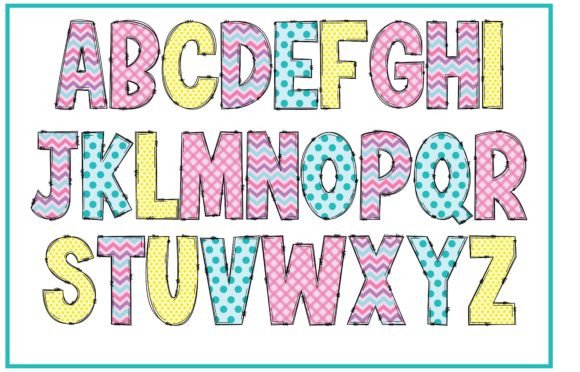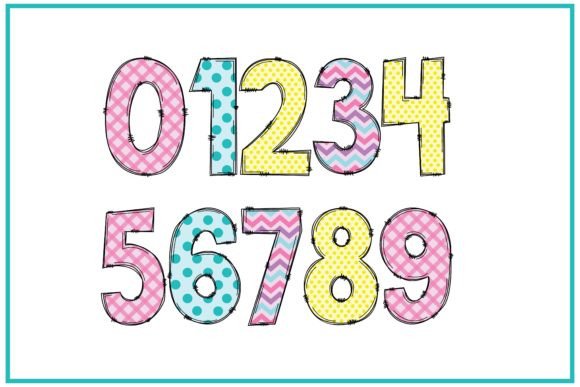
Easter Font: Add a Touch of Whimsy to Your Easter Creations
Easter is just around the corner, and what better way to celebrate than with a font that’s as sweet and chic as the holiday itself? Introducing Easter Font, a bubbly and colorful addition to your design toolkit. This delightful font is perfect for crafters, designers, and anyone looking to add a personal touch to their Easter-themed projects.
What is Easter Font?
Easter Font is a color font, specifically an Opentype-SVG font, which means it’s a cutting-edge font technology that allows for vibrant colors and intricate details. This font is designed to bring your Easter creations to life with its playful and cheerful aesthetic. Whether you’re working on Easter cards, decorations, or digital graphics, Easter Font is sure to add a touch of whimsy and fun.
Easter Font in Action
So, what can you create with Easter Font? The possibilities are endless! Here are a few ideas to get you started:
- Easter cards and invitations: Add a personal touch to your holiday greetings with colorful and playful text.
- Easter decorations: Use Easter Font to create custom signs, banners, and garlands that will make your holiday decor stand out.
- Digital graphics: Add Easter Font to your social media graphics, blog posts, and website headers to create a festive and engaging atmosphere.
Whether you’re a professional designer or a crafter, Easter Font is the perfect addition to your Easter projects.